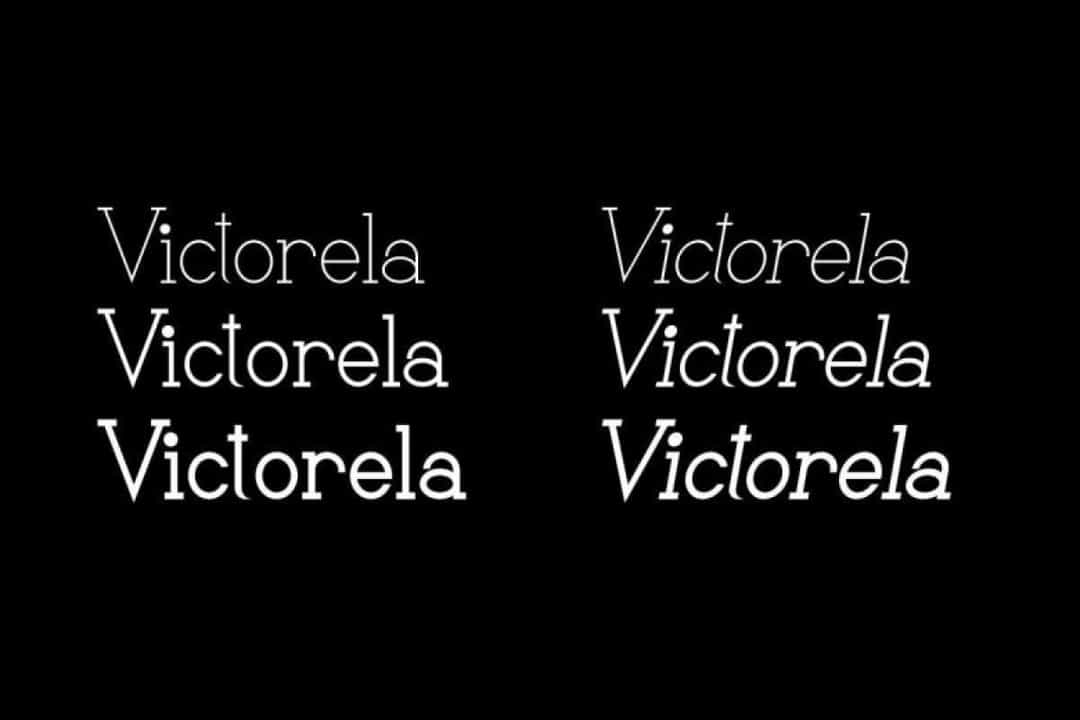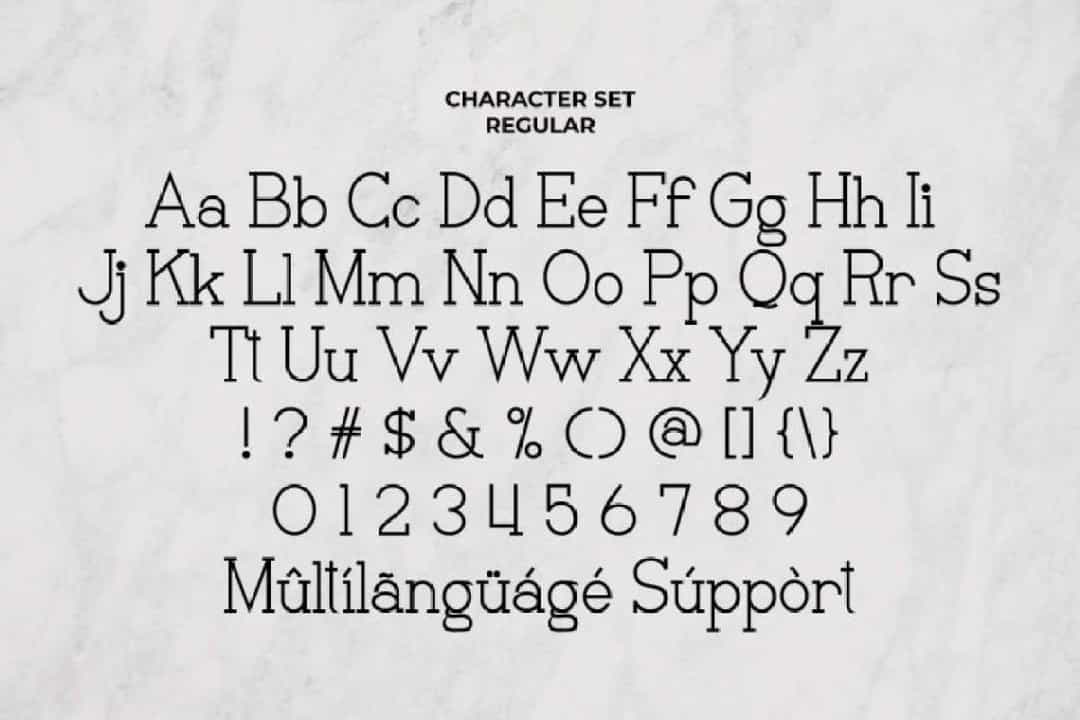
Victorela can be described as a modern slab serif font created exclusively by RaisProject to pay homage to classic font styles of yesteryear. You can view an example below where you can type any word and see how it will appear!